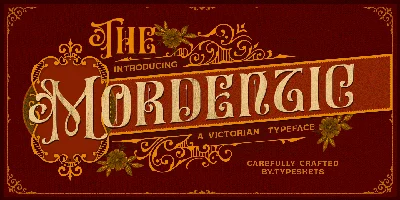
Mordentic Font
Mordentic Font – Baroque-Inspired Elegance with Modern Precision
Step into a world of ornamental sophistication with Mordentic Font, a lavish serif typeface that reinterprets 18th-century engraving styles for contemporary design. Perfect for luxury branding, high-end invitations, and projects demanding aristocratic flair.
Why Mordentic Captivates
Ornamental Refinement – Delicate filigrees and tapered strokes
3 Style Variations – Regular, Bold, and Ornamental alternate set
Perfect Readability – Maintains clarity despite elaborate details
Modern Adaptations – Historical roots with digital-age optimization
1,100+ Glyphs – Including 200+ decorative alternates
OpenType Features – Contextual ligatures, stylistic sets
Multilingual Support – Covers 50+ European languages
Perfect Kerning – 900+ precision adjustments
Mordentic Font
Experience its aristocratic elegance in your:
Luxury brand identity concepts
Wedding invitation suites
Fine jewelry packaging
Personal calligraphy projects
Where Mordentic Reigns
1. Wedding Industry
Engraved-style invitations
Gilded place cards
Romantic ceremony programs
2. Premium Branding
Cognac/liquor labeling
Watchmaker typography
Couture fashion identities
3. Cultural Institutions
Opera house programs
Museum exhibition graphics
Classical concert materials
4. Editorial Luxury
Literary journal covers
High-end magazine spreads
Special edition book titles
Design Tip: Combine with foil stamping for breathtaking engraved effects!
Perfect for: Designers who appreciate typography as a fine art.
Note: Developed in consultation with historical typography scholars.